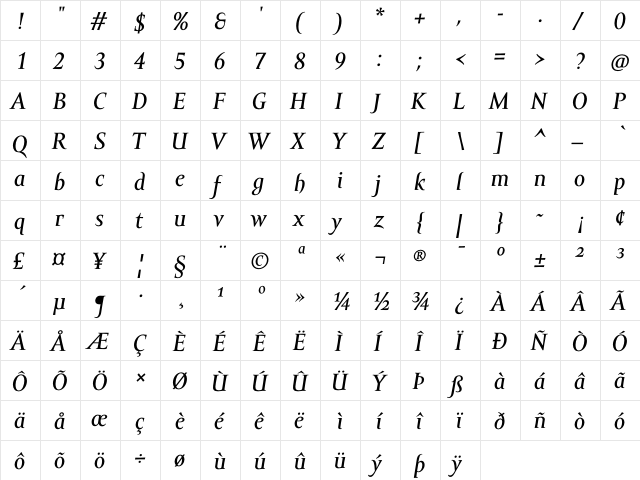
Amor Serif Text Pro Italic
Design Context for Amor Serif Text Pro Typeface
Amor Serif Text Pro brings classic typographic sensibility to the table — its serifs and measured letterforms reflect centuries of print heritage. Its italic angle brings a sense of urgency and motion to the letterforms.
Pro Tip: Use Amor Serif Text Pro for editorial body copy and considered headline work. Pair with a neutral sans for UI elements or captions to create a classic hierarchy.